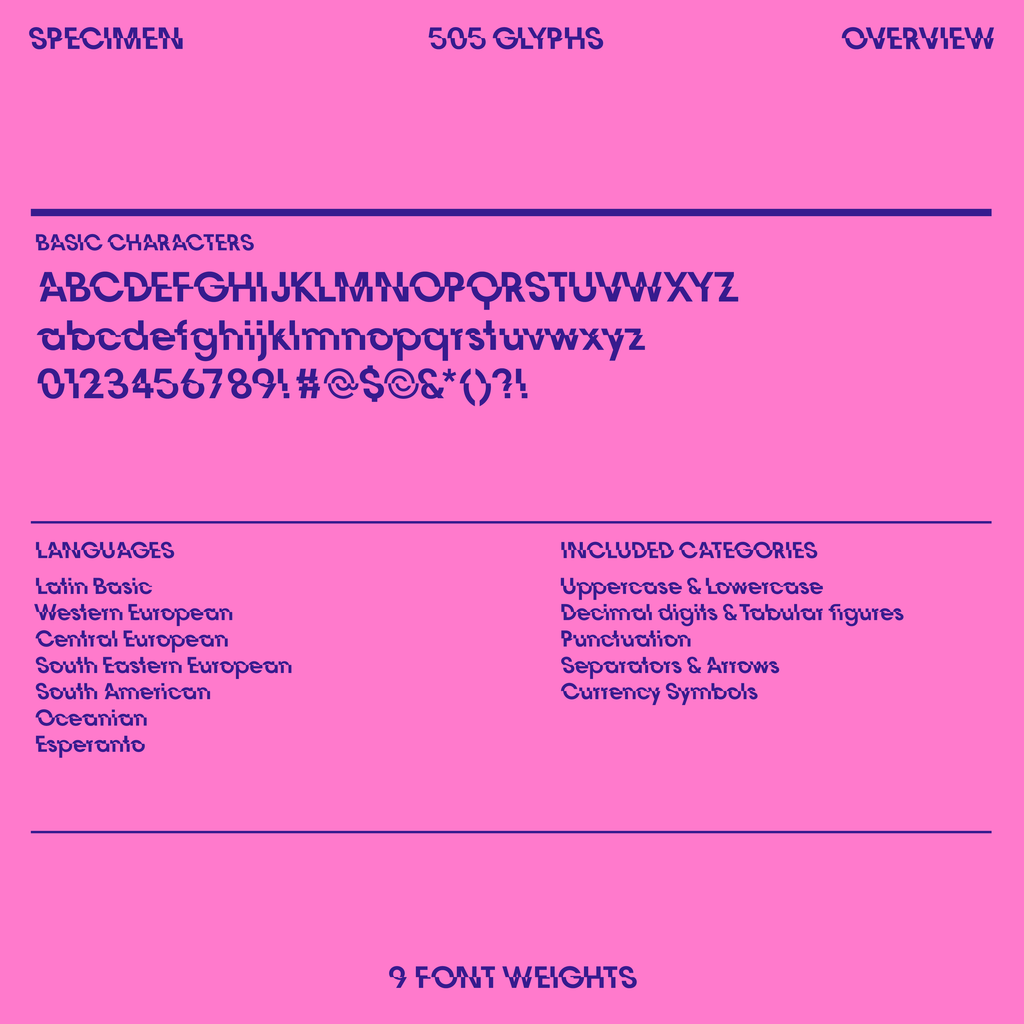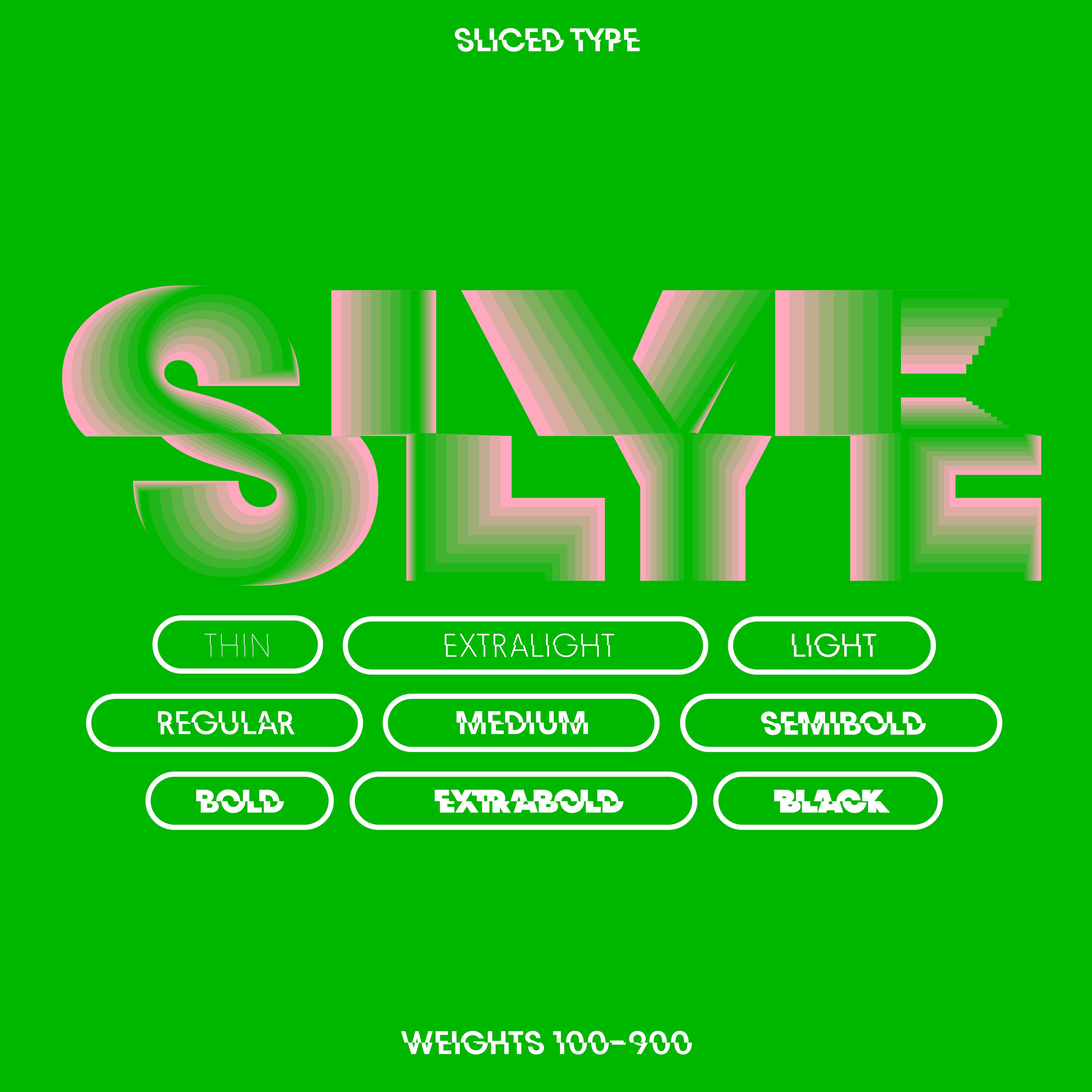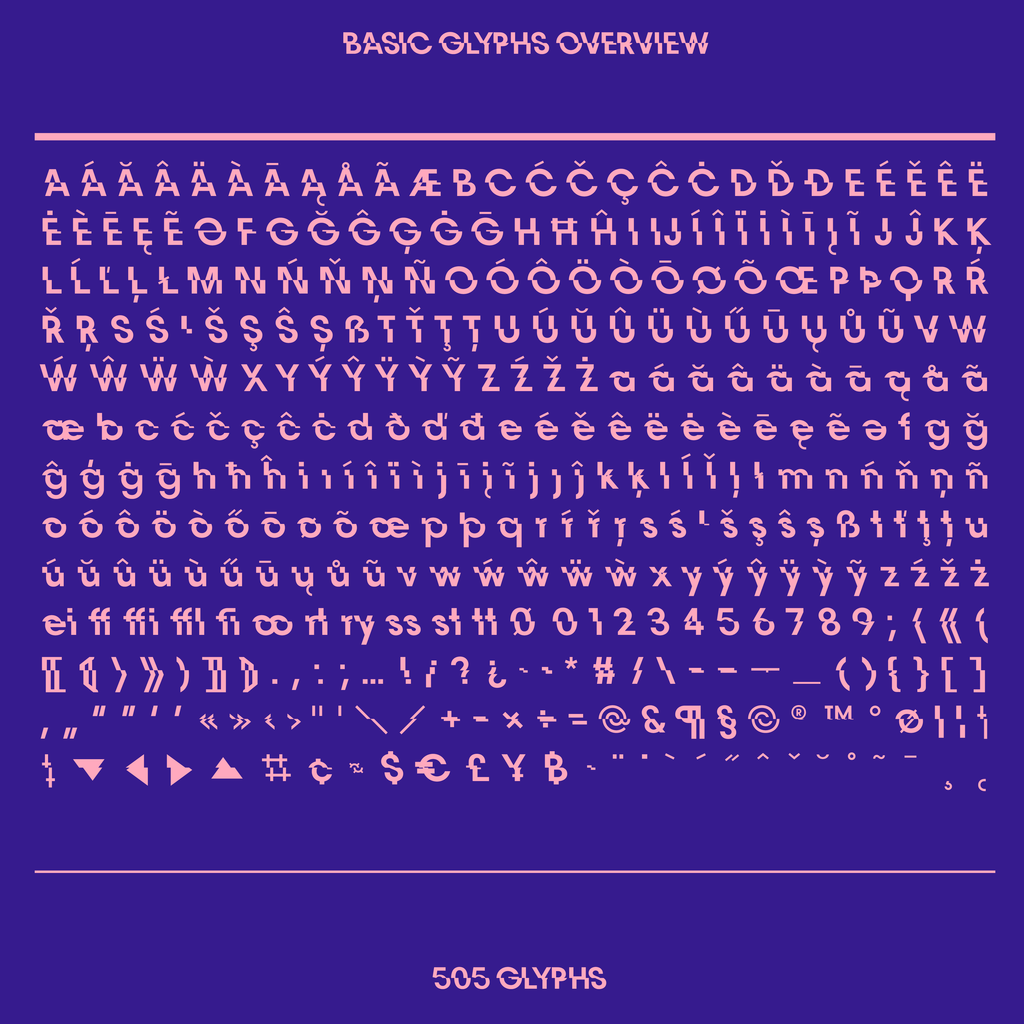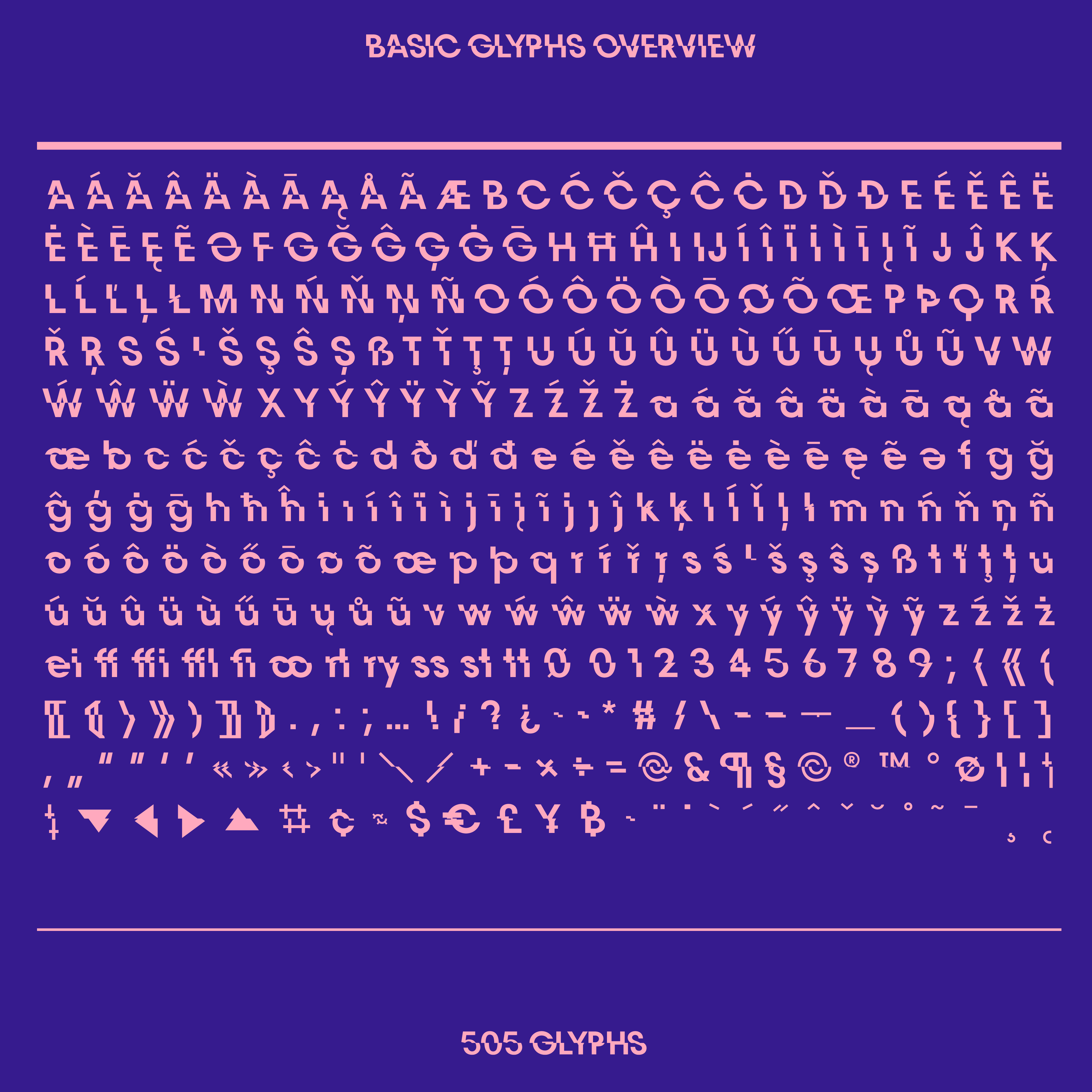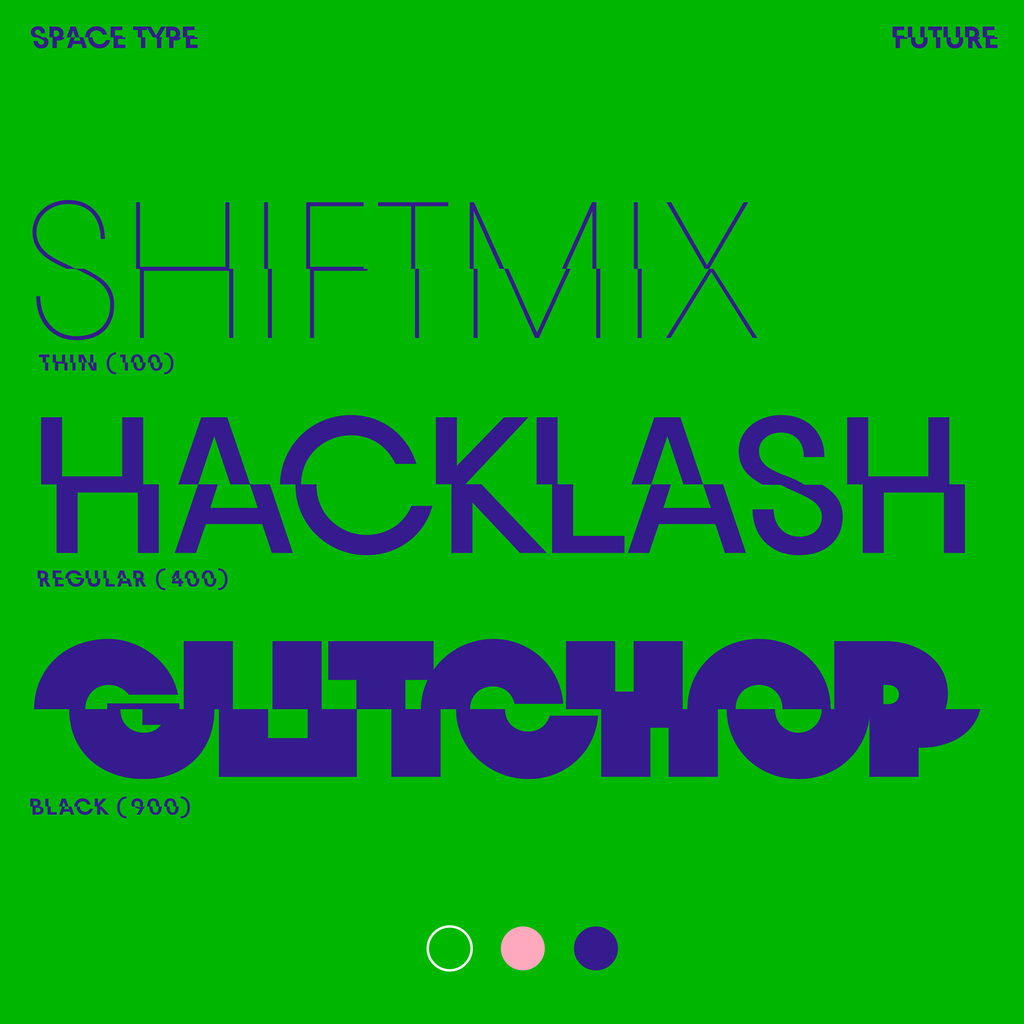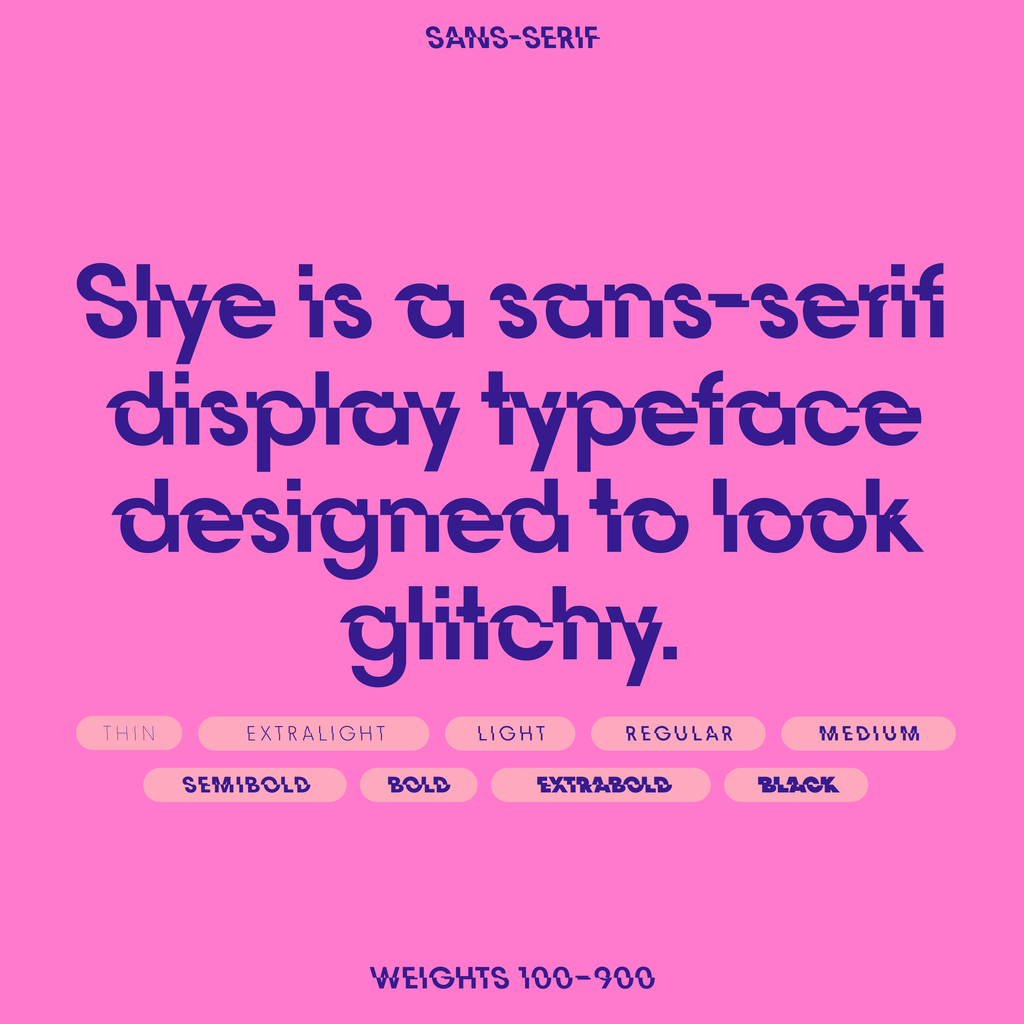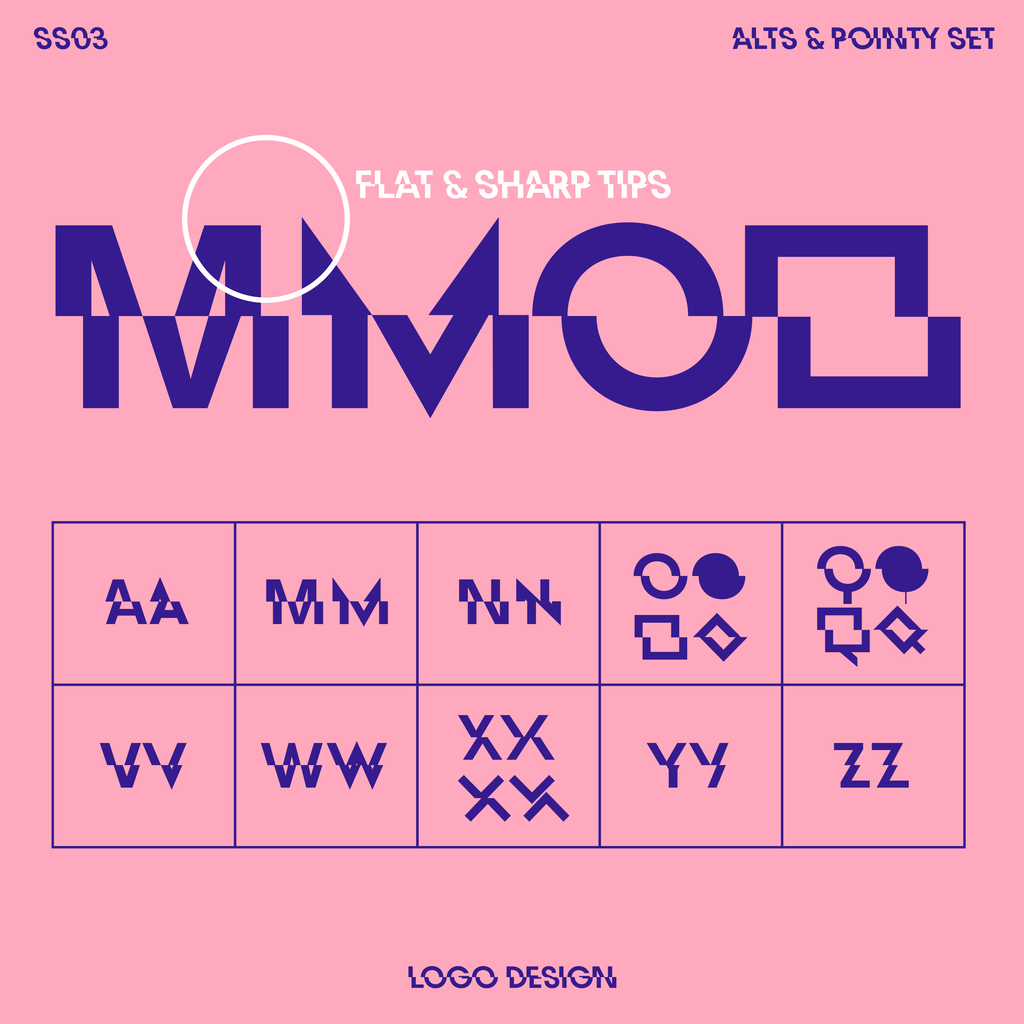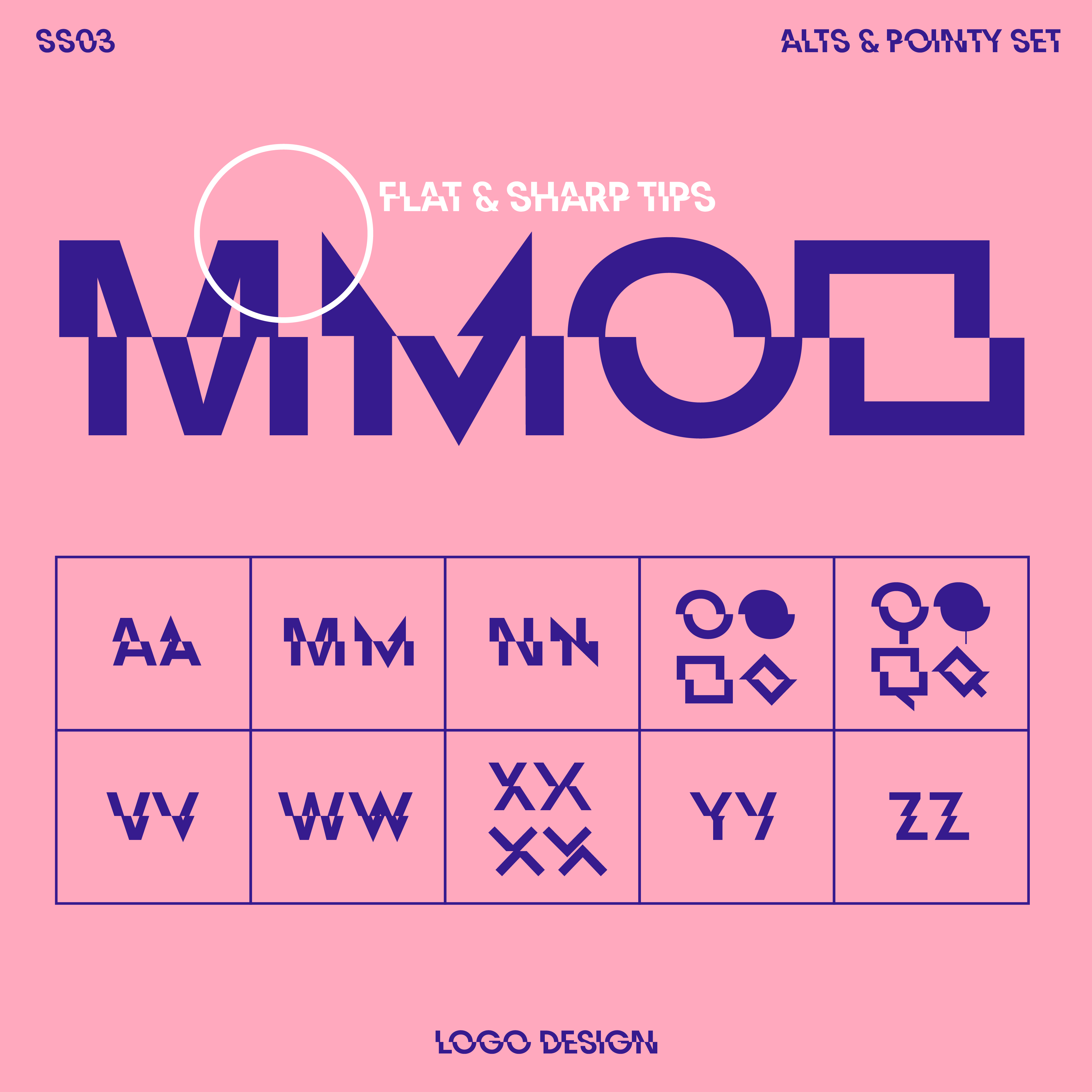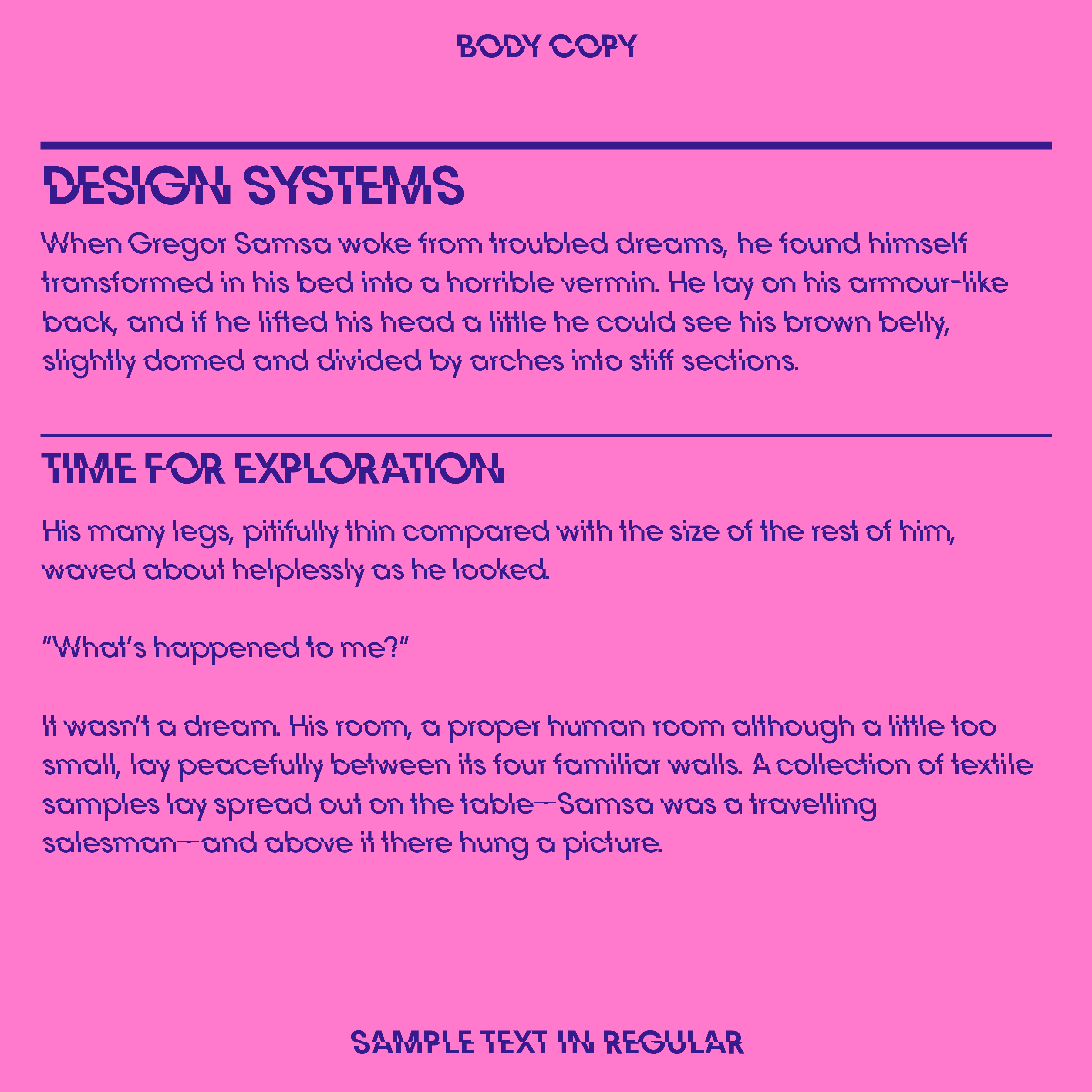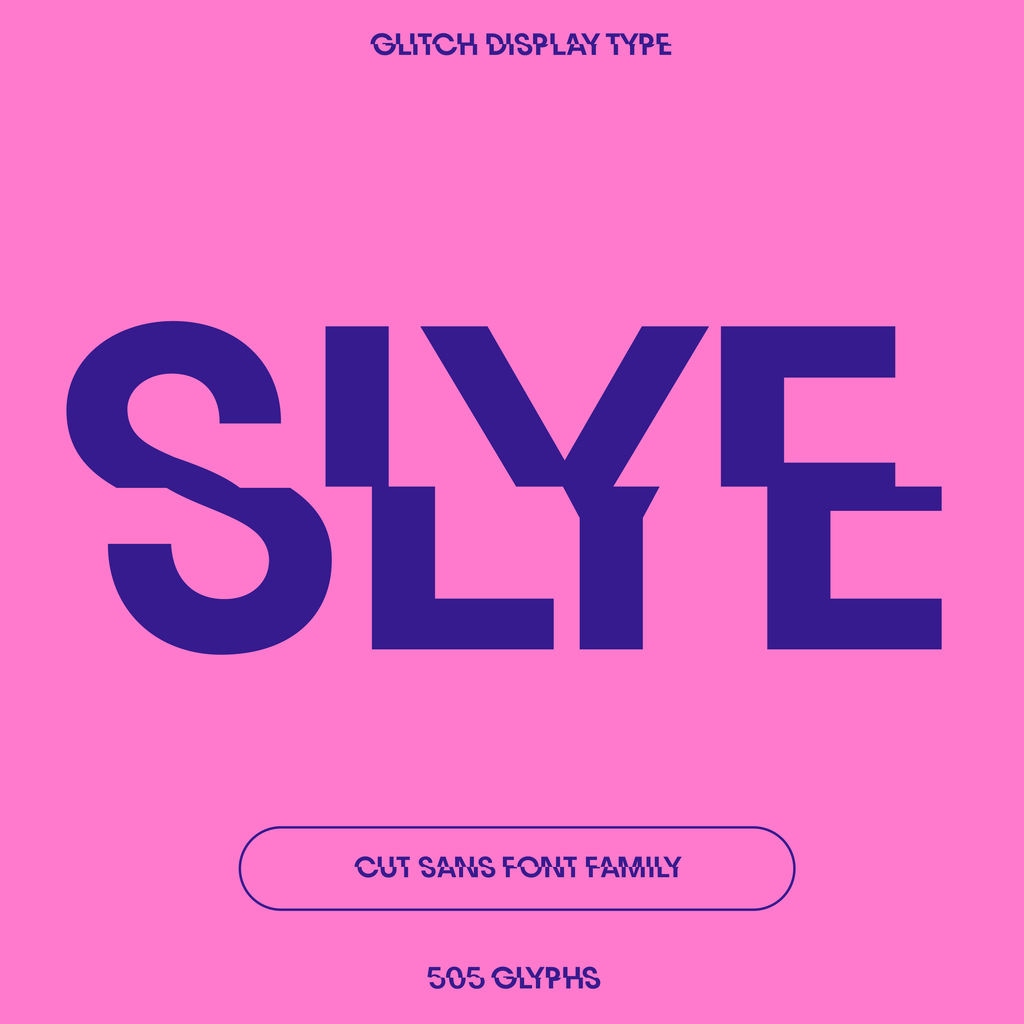
Each letter is cut across and shifted slightly. Six stylistic sets swap in pointed, square, diamond and solid forms.
In the heavy weights the slices read as a glitch, which suits music covers, gaming titles and posters.
Great for branding, title design & shorter copy, Bauhaus Slye is a sans serif typeface with a cut, sliced look. Lighter styles feel less, bolder styles feel more glitchy. With alternative letters and stylistic sets for logo design. Slye is available in nine font weights.
This edgy sans-serif gives music covers, gaming titles and posters a playful look.
Slye · variable, 100 to 900
Each letter is cut across and shifted slightly. Six stylistic sets swap in pointed, square, diamond and solid forms.
In the heavy weights the slices read as a glitch, which suits music covers, gaming titles and posters.